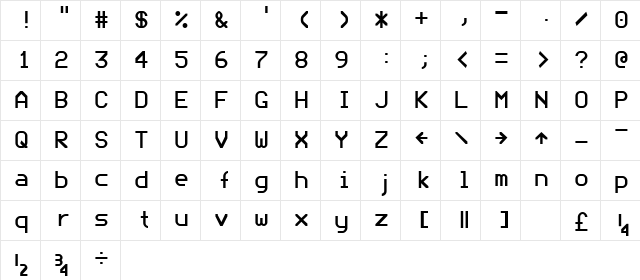
ModeNine Regular
Design Context for ModeNine Typeface
ModeNine takes a measured approach to typography — its balanced proportions and neutral character make it a reliable workhorse for both digital and print work.